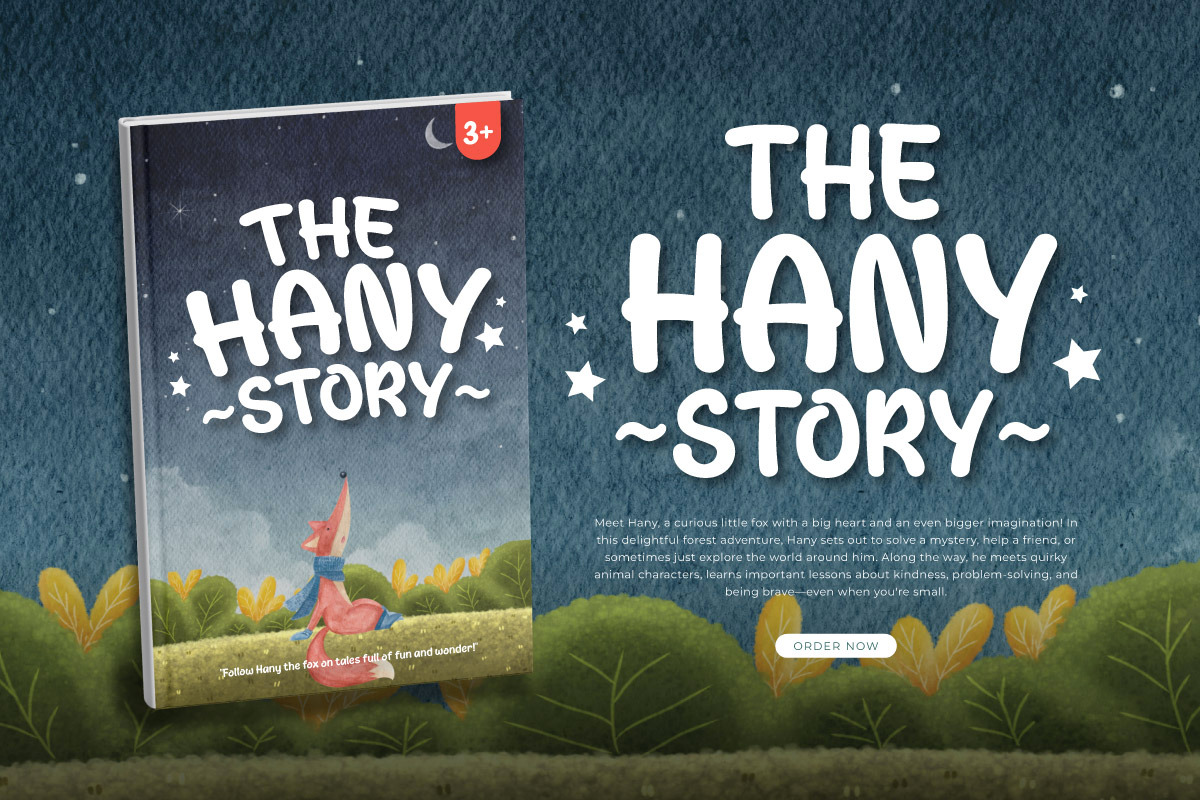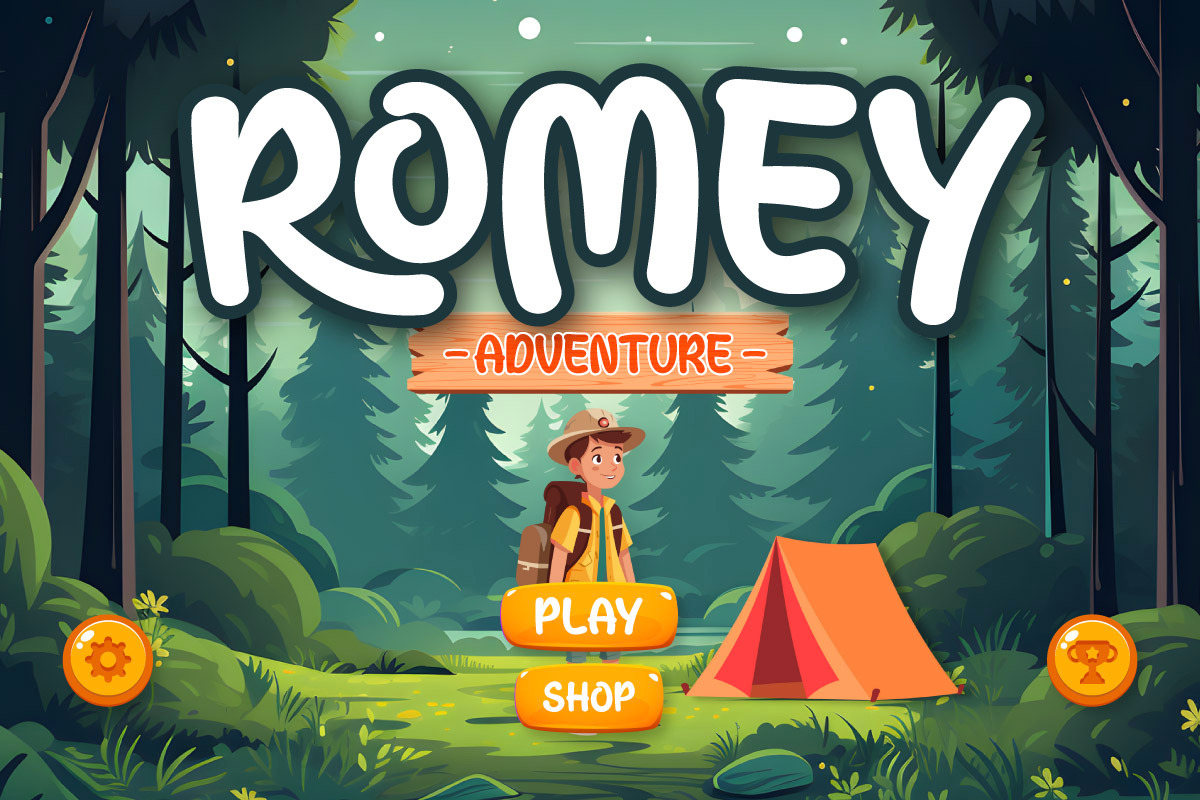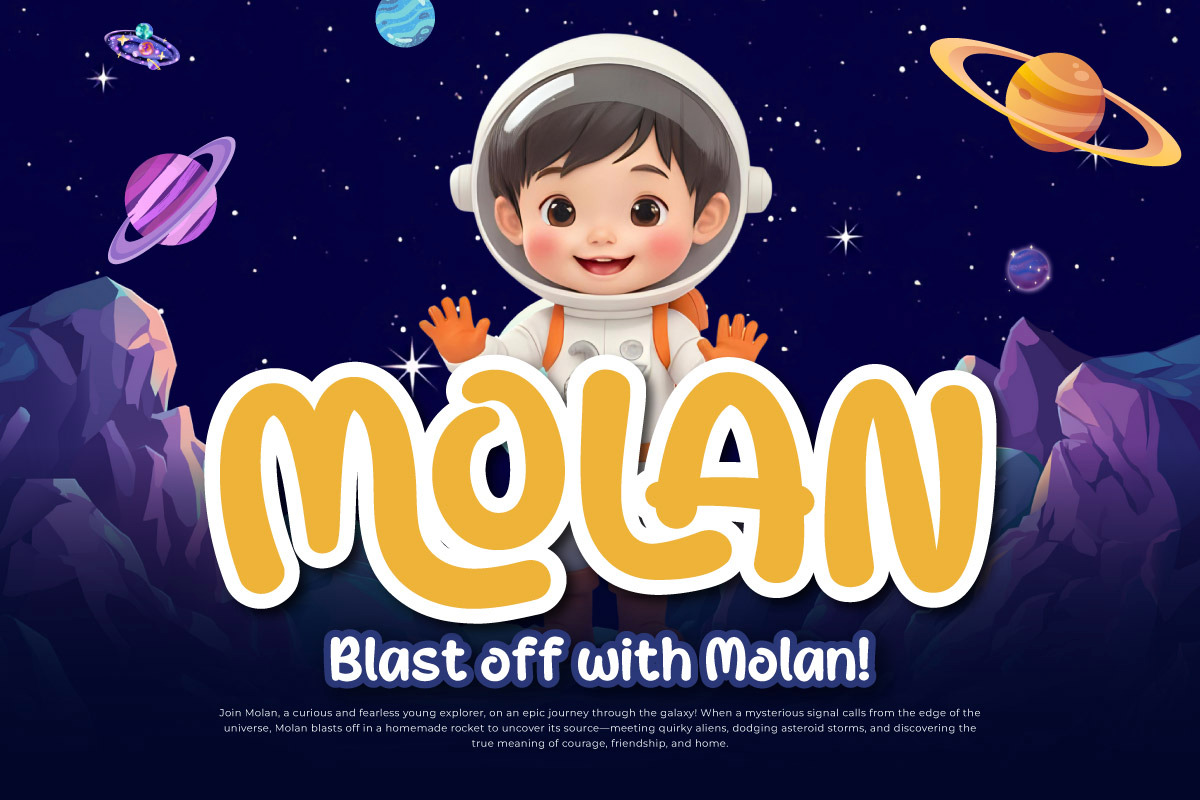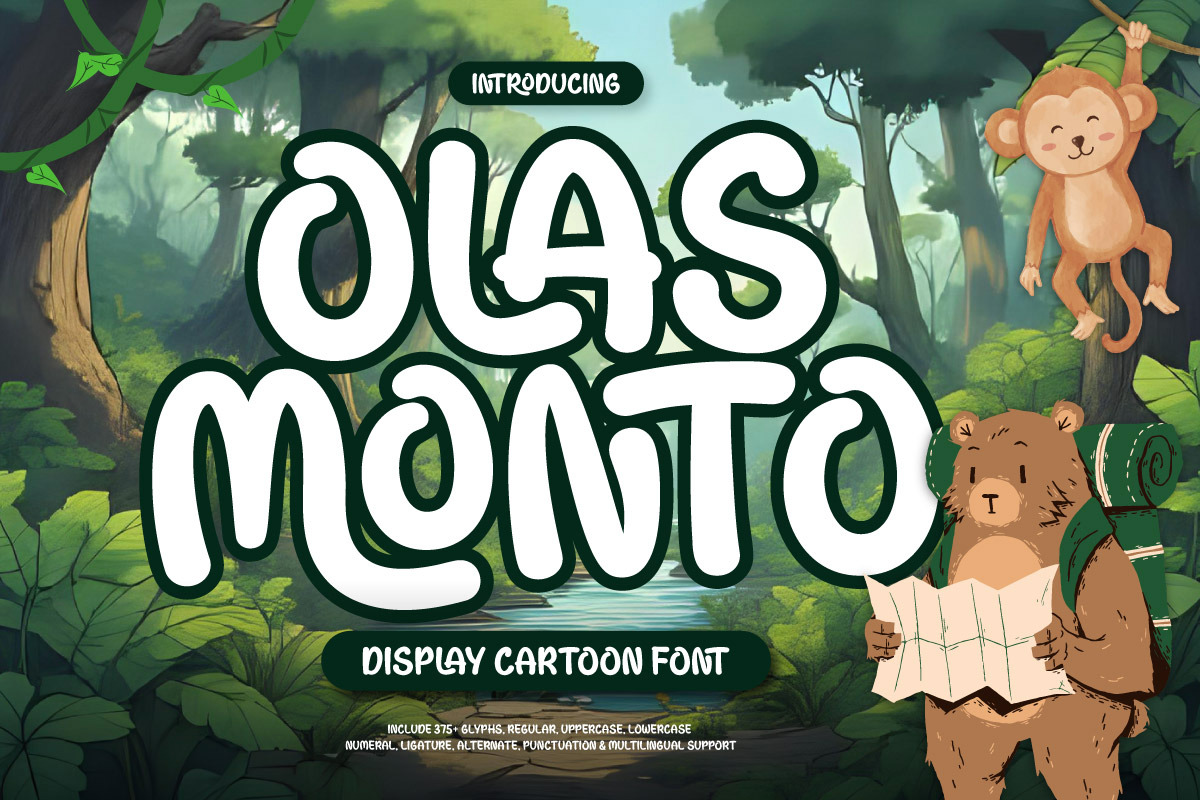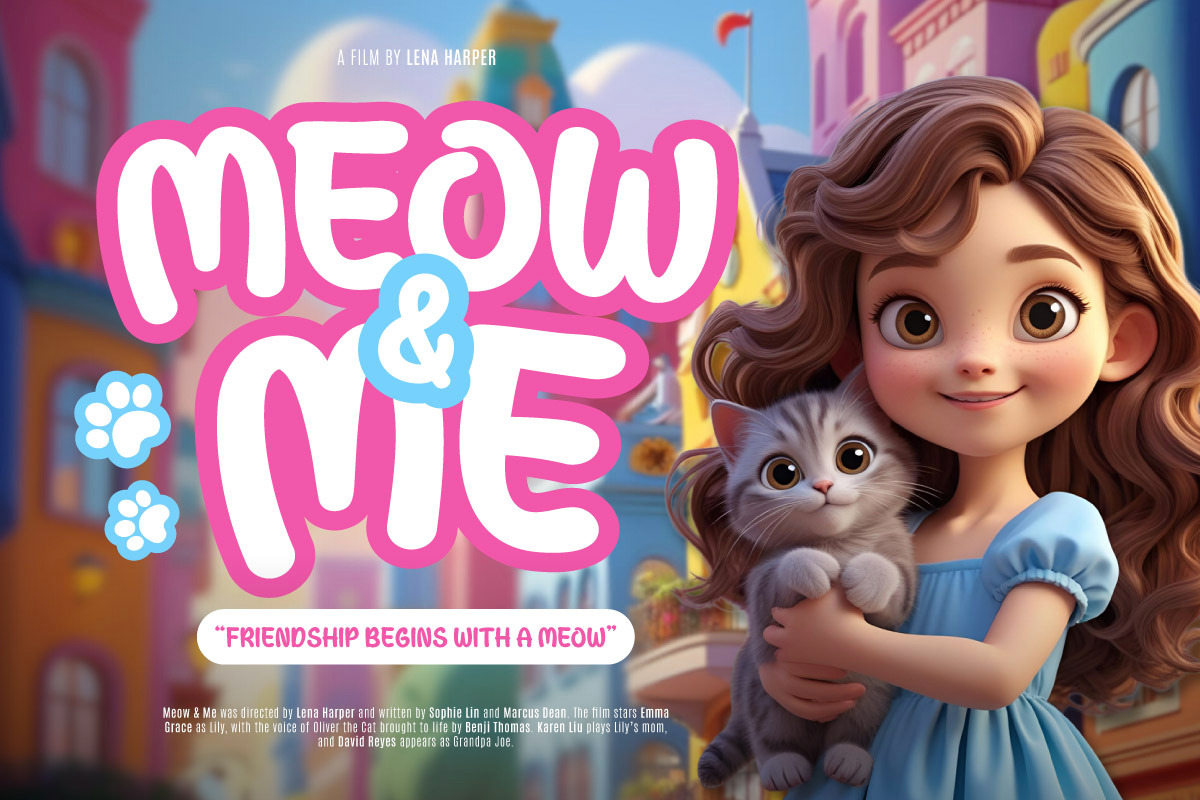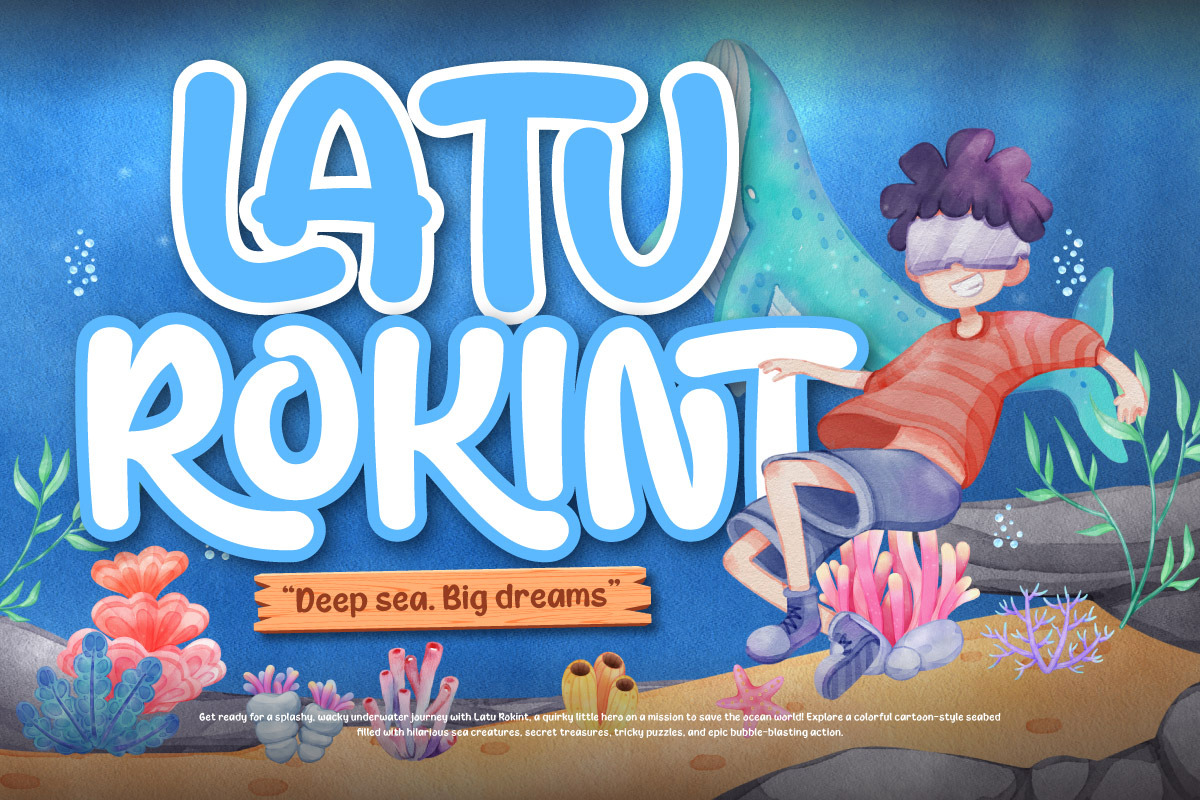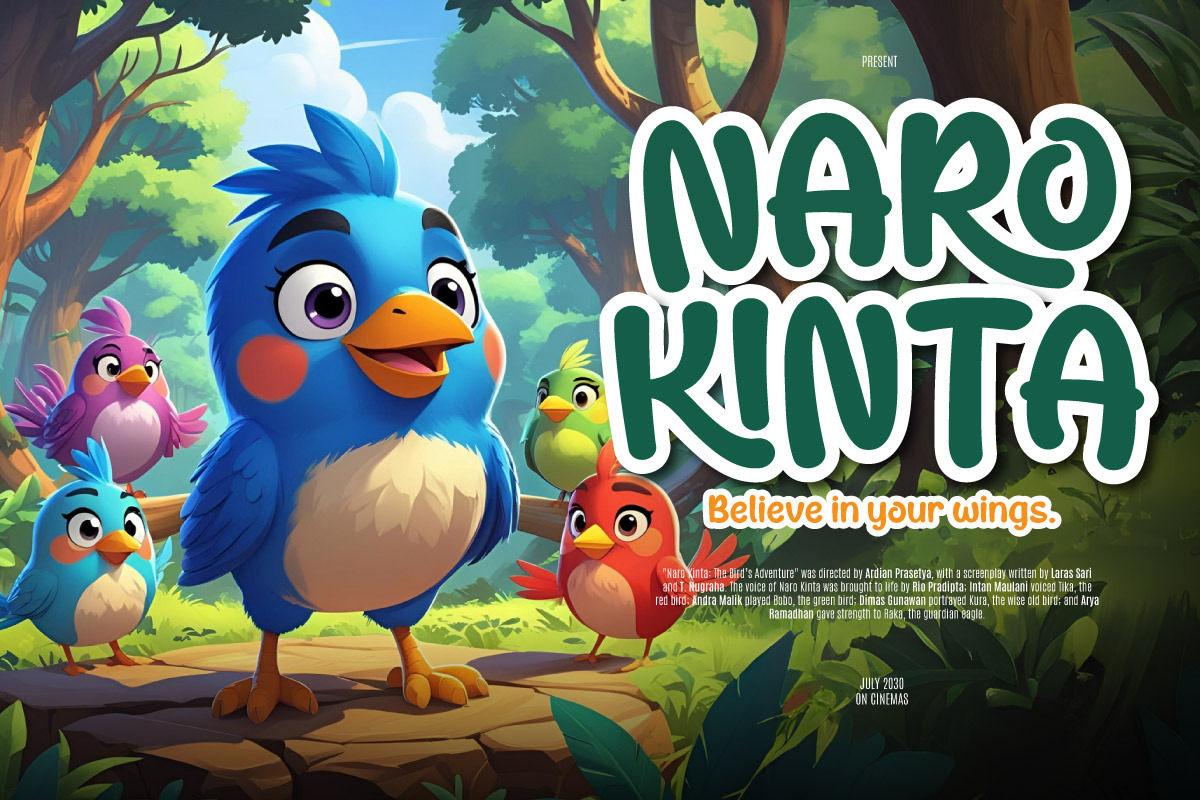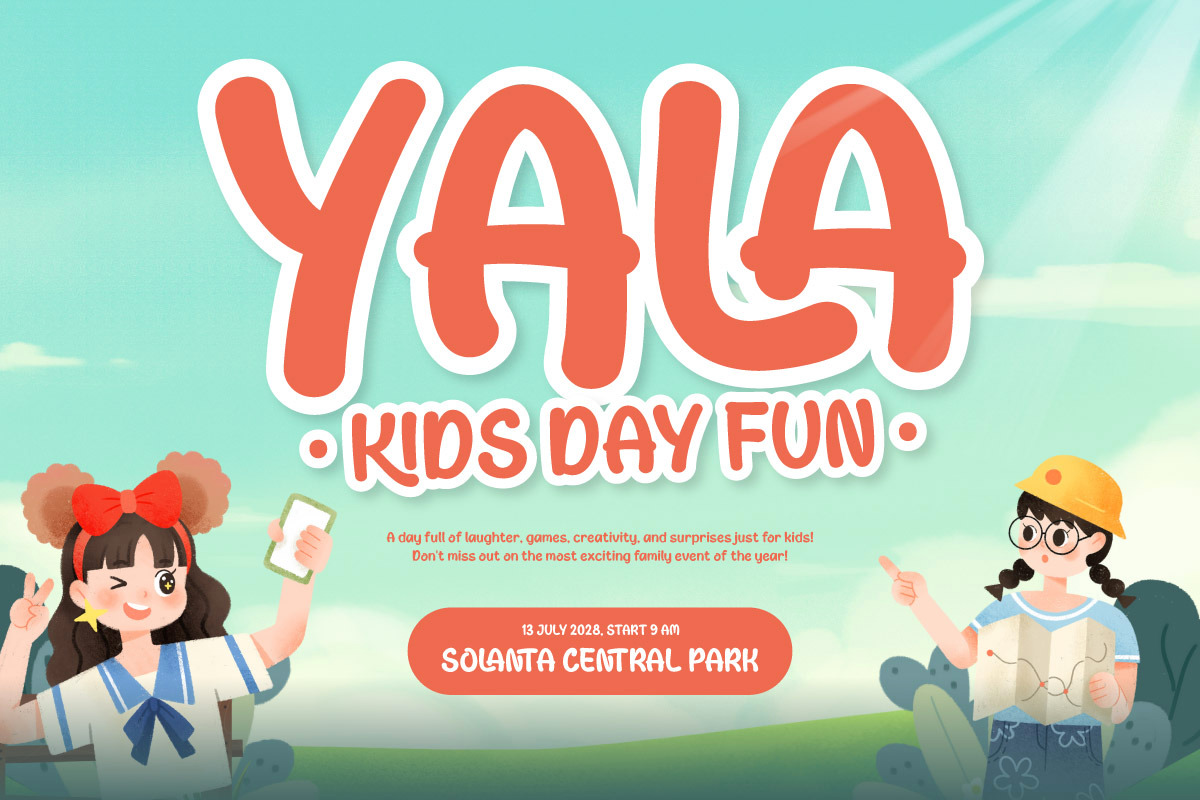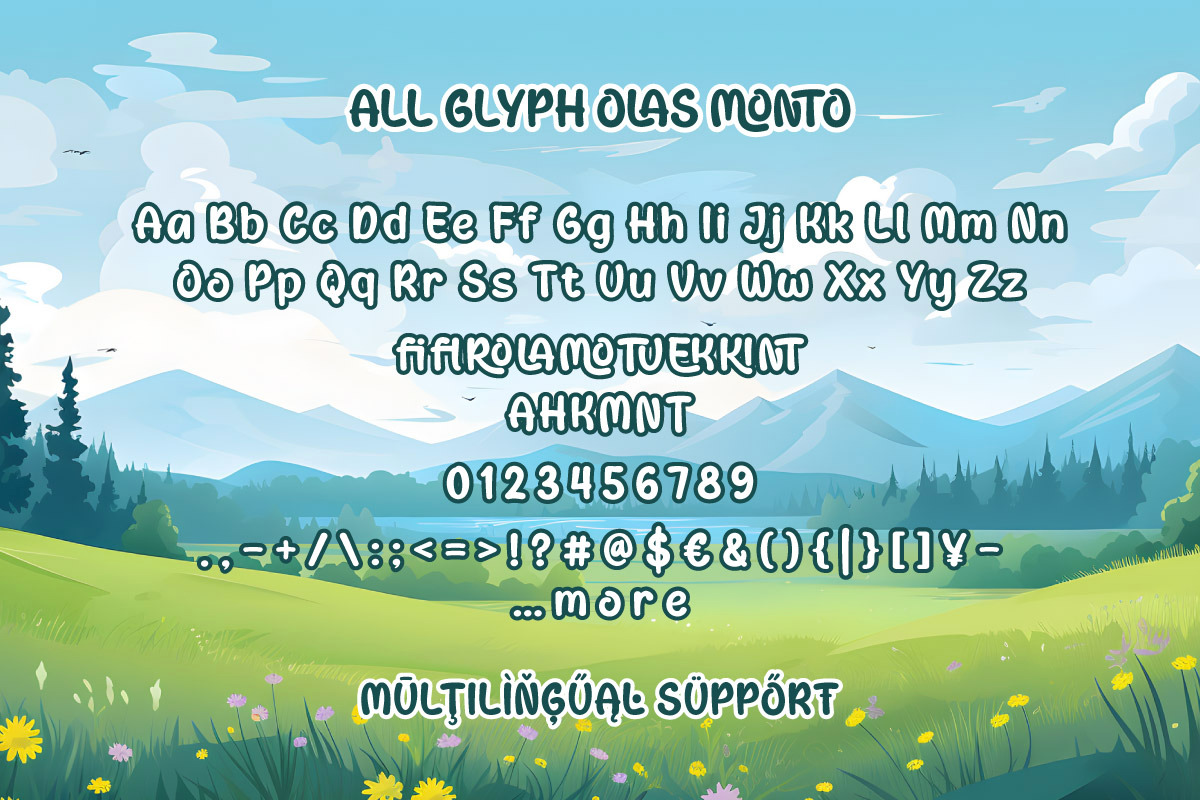
Olas Monto - Cartoon Display Font
Olas Monto is a joyful and expressive cartoon display font crafted to bring fun and character into your designs. Featuring two charming styles—Regular and Outline—this font is perfect for children's storybooks, animated titles, comic-inspired branding, birthday invitations, educational materials, and colorful packaging.
The Regular version offers a bold, chunky look that’s full of personality and highly readable, while the Outline style adds creative flexibility for layering, coloring, or adding playful effects. Every curve in Olas Monto is designed to feel friendly, imaginative, and energetic.
Whether you're working on kid-focused content or playful commercial projects, Olas Monto adds a burst of cartoon spirit and charm that stands out in any setting.
- PUA Encoded Characters, Fully accessible without additional design software.
- Fonts include Multilingual: Support for 85 languages. Afrikaans, Albanian, Asu, Basque, Bemba, Bena, Breton, Catalan, Chiga, Cornish, Croatian, Czech, Danish, Dutch, Embu, English, Esperanto, Estonian, Filipino, Finnish, French, Friulian, Galician, Gusii, Hungarian, Indonesian, Irish, Italian, Kabuverdianu, Kalenjin, Kamba, Kikuyu, Kinyarwanda, Latvian, Lithuanian, Lower, Sorbian, Luo, Luxembourgish, Luyia, Machame, Makhuwa-Meetto, Makonde, Malagasy, Maltese, Manx, Meru, Morisyen, North, Ndebele, Norwegian Bokmål, Norwegian Nynorsk, Nyankole, Oromo, Polish, Portuguese, Quechua, Romanian, Romansh, Rombo, Rundi, Rwa, Samburu, Sango, Sangu, Scottish, Gaelic, Sena, Serbian, Shambala, Shona, Slovak, Slovenian, Soga, Somali, Spanish, Swahili, Swedish, Swiss German, Taita, Teso, Turkish, Upper Sorbian, Uzbek (Latin), Volapük, Vunjo, Walser, Zulu.